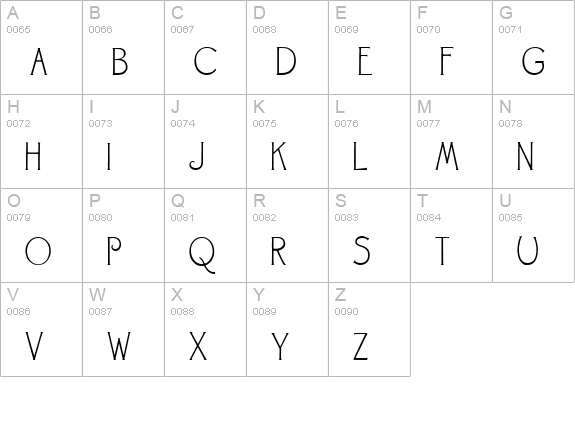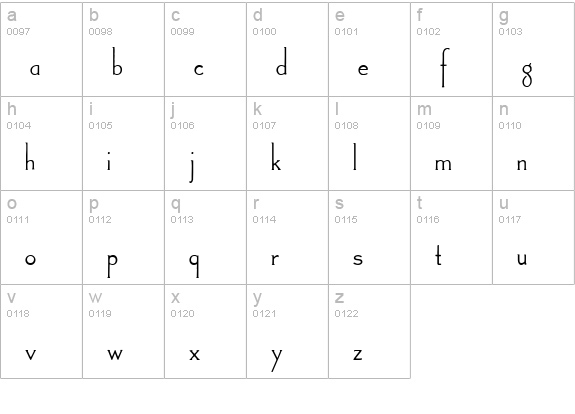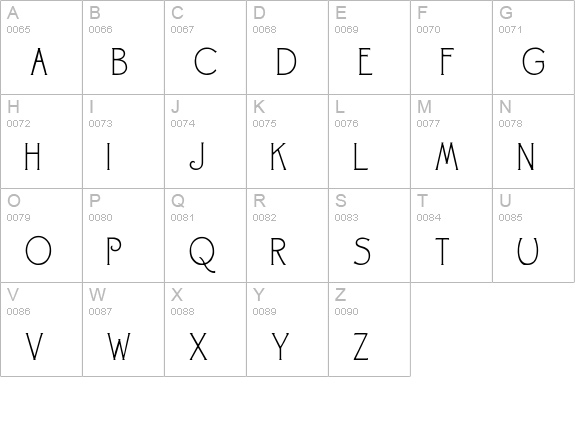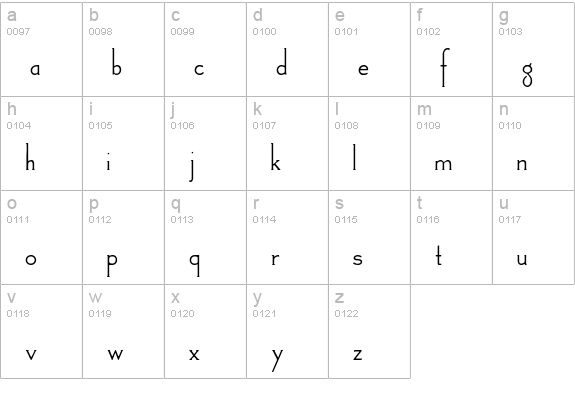
Landsdowne font is a timeless and elegant typeface that exudes sophistication and class. With its clean lines and graceful curves, this font is perfect for adding a touch of luxury to any design project. The versatility of Landsdowne font makes it suitable for a wide range of applications, from branding and advertising to invitations and packaging. What makes Landsdowne font even more appealing is that it is available for free download at FontsMarket.com. This means that you can easily access this stunning font and use it in your projects without any cost. Don't miss out on the opportunity to enhance your designs with the beauty of Landsdowne font – download it for free today!